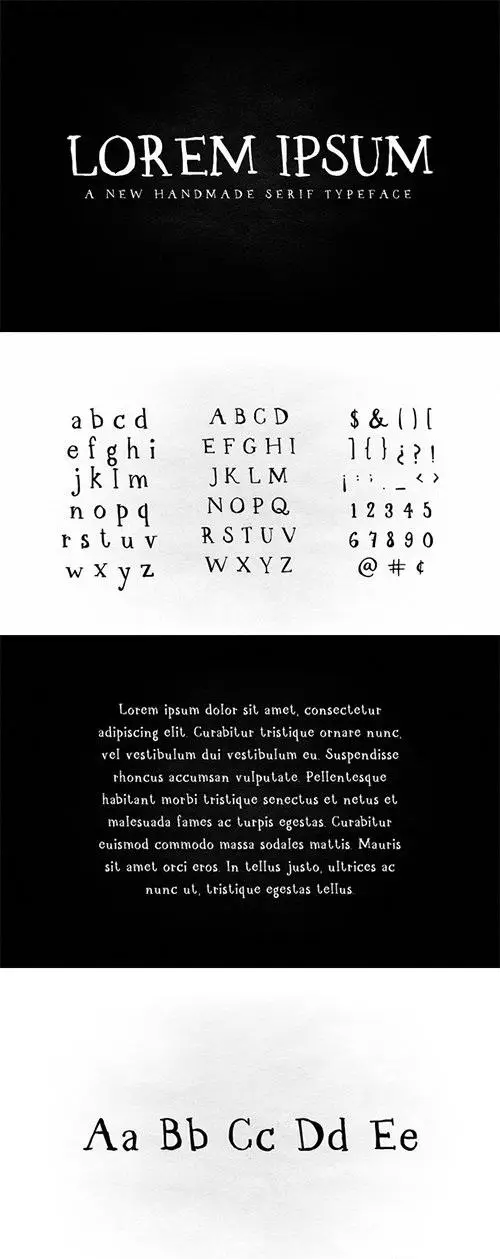
Amazing Serif font created with a pen brush on a paper canvas. It was funny making this font I hope you can find amazing uses and make great designs with it